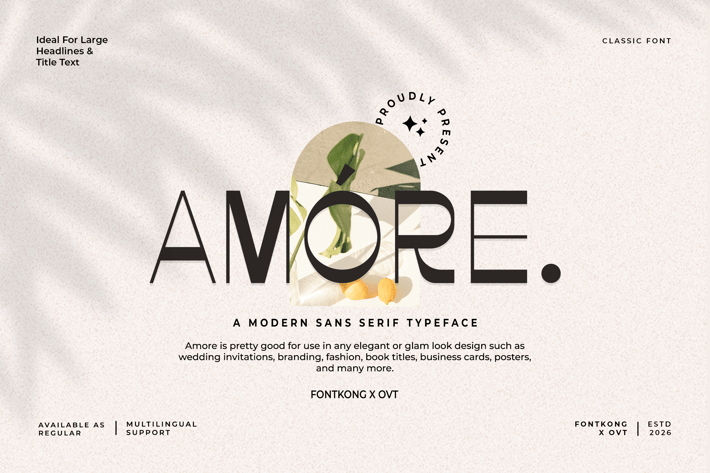
Amore - Modern Sans Serif Typeface
Introducing "Amore," a modern sans serif typeface that blends elegance with contemporary simplicity. Perfect for graphic designers, typographers, and creatives looking to add a touch of sophistication to their projects, Amore offers a clean and versatile design that enhances readability and visual appeal.
Ideal for branding, editorial layouts, web design, packaging, and corporate identities, Amore’s balanced and refined characters provide a timeless aesthetic. Each letter is meticulously crafted to ensure clarity and legibility across various mediums, making your designs both polished and professional.
The "Amore" font includes a complete set of uppercase and lowercase letters, numbers, punctuation marks, and special characters. This comprehensive set ensures seamless integration into diverse design applications, from sleek logos to elegant print materials.
Elevate your designs with Amore, the modern sans serif typeface that embodies elegance through simplicity.
Introducing "Amore," a modern sans serif typeface that blends elegance with contemporary simplicity. Perfect for graphic designers, typographers, and creatives looking to add a touch of sophistication to their projects, Amore offers a clean and versatile design that enhances readability and visual appeal.
Ideal for branding, editorial layouts, web design, packaging, and corporate identities, Amore’s balanced and refined characters provide a timeless aesthetic. Each letter is meticulously crafted to ensure clarity and legibility across various mediums, making your designs both polished and professional.
The "Amore" font includes a complete set of uppercase and lowercase letters, numbers, punctuation marks, and special characters. This comprehensive set ensures seamless integration into diverse design applications, from sleek logos to elegant print materials.
Elevate your designs with Amore, the modern sans serif typeface that embodies elegance through simplicity.